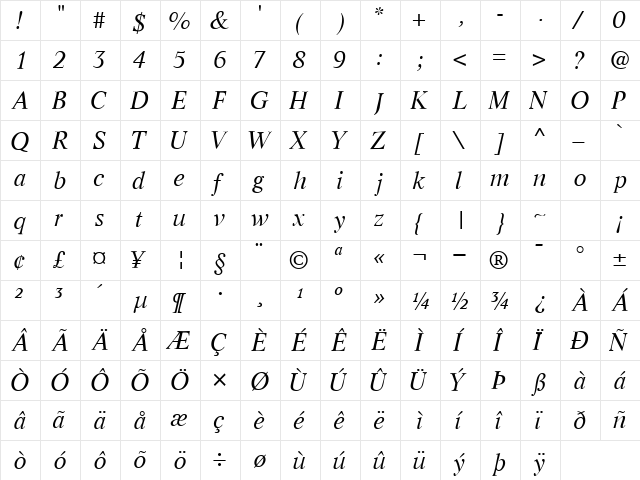
ResourceSSK Italic
Design Context for ResourceSSK Typeface
ResourceSSK offers clean, dependable letterforms without strong stylistic allegiance, making it a practical choice for designers who need flexibility. Its italic angle brings a sense of urgency and motion to the letterforms.
Pro Tip: Try ResourceSSK for annotation and caption copy alongside an upright companion — the contrast in angle creates a dynamic but ordered typographic system.